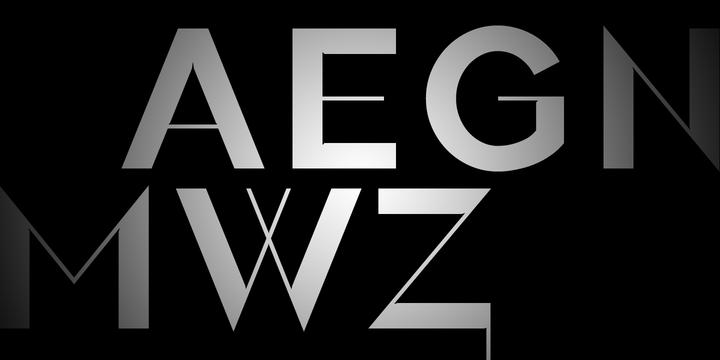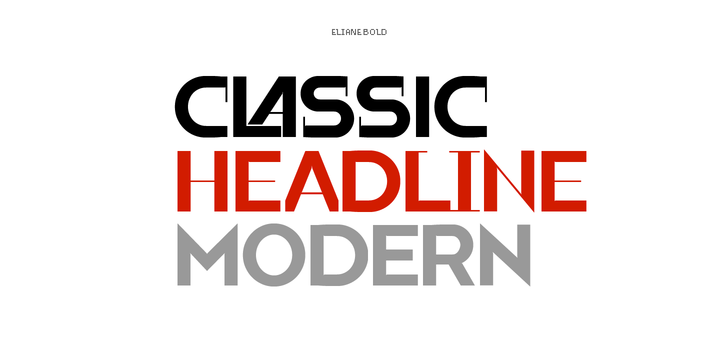
Eliane is an elegant headline font born from the mixture of Bold and ExtraLight Caps. Eliane assumes Bold and ExtraLight, thickness in the design of each glyph.
Eliane brings a new vision to fonts design special in letters A,M,N,W or Z. Eliane brings personality to your design, because the uppercase letters can be mixed with lowercase letters in multiple choices